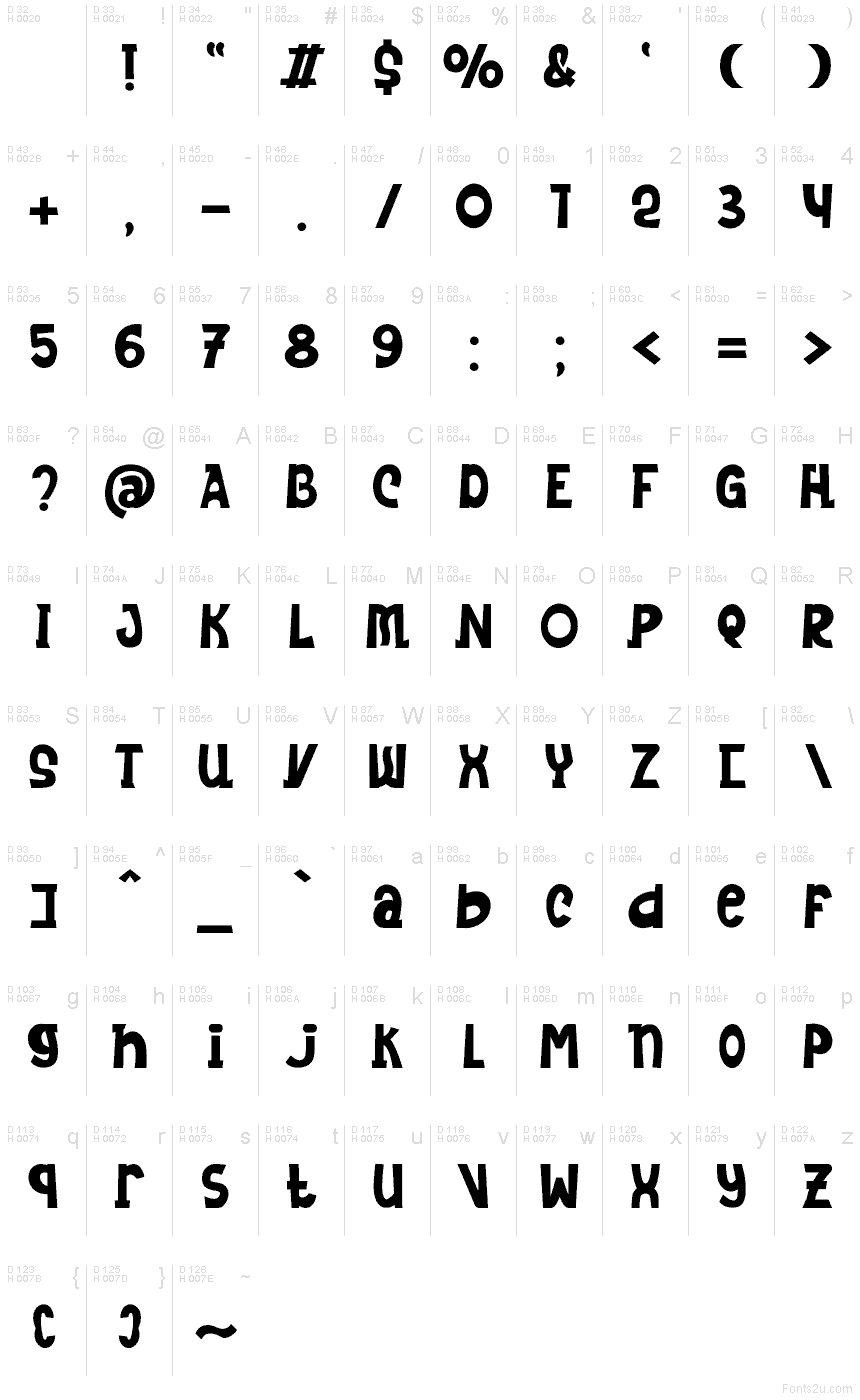
Mankey Caimel
Mankey Caimel font by Dhabee Studio is a free groovy display typeface with a loose, hand-drawn pulse that feels like marker ink dancing across a poster. The letters wobble and bulge in all the right places, giving text a playful, home-made energy that’s both bold and friendly. It reads like a doodle that grew up just enough to headline your project, without losing its fun.
Using Mankey Caimel, you can bring that carefree vibe to kids’ book covers, candy or snack packaging, party invitations, social media graphics, band posters, and quirky logo concepts. This free font shines when set large and given room to breathe; pair it with a clean geometric sans for body copy to keep the layouts legible while the headlines stay wild.